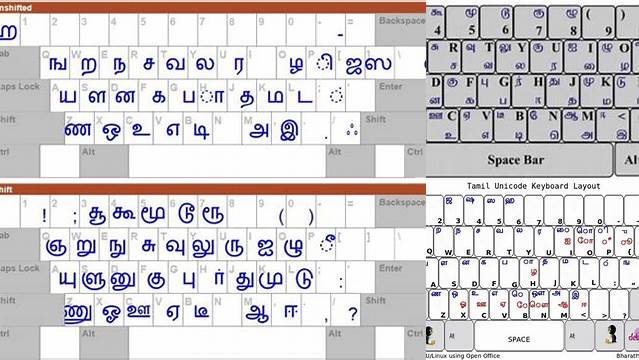
Introduction to Bamini Tamil Font Keyboard Layout
Hey guys! Are you looking to download the Bamini Tamil font keyboard layout for free? You've come to the right place! In this comprehensive guide, we will delve into everything you need to know about the Bamini Tamil font, its keyboard layout, and how to download it for free. Whether you are a student, a professional, or someone simply passionate about the Tamil language, mastering the Bamini font is a valuable skill. The Bamini font has long been a staple for Tamil typing, especially in older systems and certain software applications. Understanding its layout and how to use it effectively can significantly enhance your Tamil language computing skills.
The Bamini font, a widely used typeface for the Tamil language, holds a special place in the history of digital typography in Tamil Nadu and beyond. Its creation and adoption marked a significant milestone in making Tamil accessible on computers. Before the advent of Unicode, Bamini served as the go-to font for numerous users and institutions for their Tamil typing needs. Its simple yet distinct design made it a favorite among typists, publishers, and even government organizations. The legacy of the Bamini font extends beyond its aesthetic appeal; it represents a crucial phase in the evolution of Tamil computing. Understanding the historical context of Bamini can provide valuable insights into the challenges faced by early adopters of digital Tamil typography.
Why Bamini Font Remains Relevant
Even with the widespread adoption of Unicode and newer fonts, the Bamini font continues to be relevant for several reasons. Firstly, a vast amount of legacy data and documents were created using Bamini. This means that many individuals and organizations still need to access and work with these older files. Secondly, some users simply prefer the Bamini font due to its familiarity and ease of use, particularly those who have been typing in Tamil for many years. Additionally, certain software applications and platforms may still require or work best with Bamini. As such, having the ability to use and understand Bamini remains a valuable asset for anyone working with Tamil language computing.
Understanding the Bamini Tamil Keyboard Layout
So, what makes the Bamini Tamil keyboard layout so unique? Well, it's all about the arrangement of the Tamil characters on the keyboard. Unlike standard QWERTY keyboards, the Bamini layout is specifically designed to accommodate the Tamil script, which has a rich set of characters, including vowels, consonants, and compound letters. The layout might seem a bit intimidating at first, but don't worry! Once you understand the logic behind it, you'll be typing away in Tamil in no time.
Key Features of the Bamini Layout
The Bamini layout places frequently used characters in easily accessible locations, making typing faster and more efficient. It also utilizes a combination of single and double keystrokes to represent the various Tamil letters and symbols. Many users find that, with practice, the layout becomes intuitive, allowing for a natural and fluid typing experience. The Bamini keyboard layout stands as a testament to the ingenuity of early Tamil computing pioneers. Designed to map the complex Tamil script onto standard computer keyboards, it cleverly utilizes every key to represent the numerous vowels, consonants, and compound characters that comprise the language. This layout, while initially appearing daunting to newcomers, has become deeply ingrained in the muscle memory of countless Tamil typists. The strategic placement of frequently used characters ensures efficient typing, minimizing the need for awkward finger stretches. With dedication and consistent practice, the Bamini layout can transform into a seamless extension of your thoughts, enabling you to express yourself fluently in Tamil.
How it Differs from Other Layouts
One of the main differences between the Bamini layout and other Tamil layouts, like the Tamil99 layout, is the character mapping. While Tamil99 aims for a more phonetic approach, Bamini often uses a more traditional, typewriter-style mapping. This means that if you're used to typing on a Tamil typewriter, you might find the Bamini layout more familiar. Another key distinction lies in the ease of transition for those already accustomed to the English QWERTY keyboard. Bamini cleverly incorporates some familiar key positions, making the learning curve less steep for bilingual typists. However, this can also be a double-edged sword, as certain characters require a combination of keystrokes that deviate from the standard QWERTY logic. Ultimately, the choice between Bamini and other layouts often boils down to personal preference and the specific needs of the user.
Tips for Learning the Layout
Learning the Bamini layout can seem like a challenge, but with the right approach, it can be quite manageable. Start by familiarizing yourself with the basic vowels and consonants, and then gradually move on to the more complex characters. There are plenty of online resources and typing tutorials available to help you along the way. Practice makes perfect, so try to dedicate some time each day to typing in Bamini. One of the most effective ways to master the Bamini layout is through consistent, targeted practice. Begin by focusing on a small set of characters at a time, gradually expanding your repertoire as you become more comfortable. Utilize online typing tutors and games specifically designed for the Bamini layout to make learning fun and interactive. Don't be afraid to make mistakes – they are a natural part of the learning process. Celebrate small victories and track your progress to stay motivated. Consider creating flashcards with character mappings to reinforce your memory, or even printing out a Bamini keyboard layout to keep as a visual reference. With patience and perseverance, you'll be typing fluently in no time!